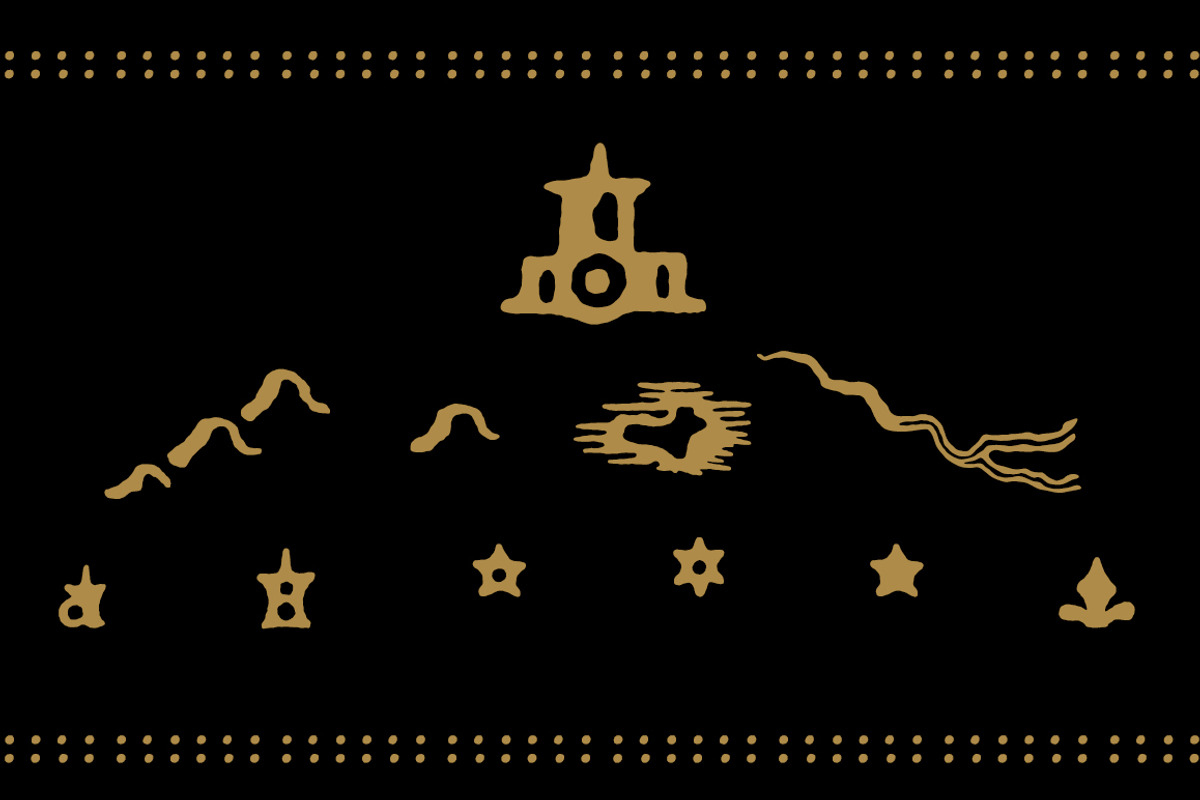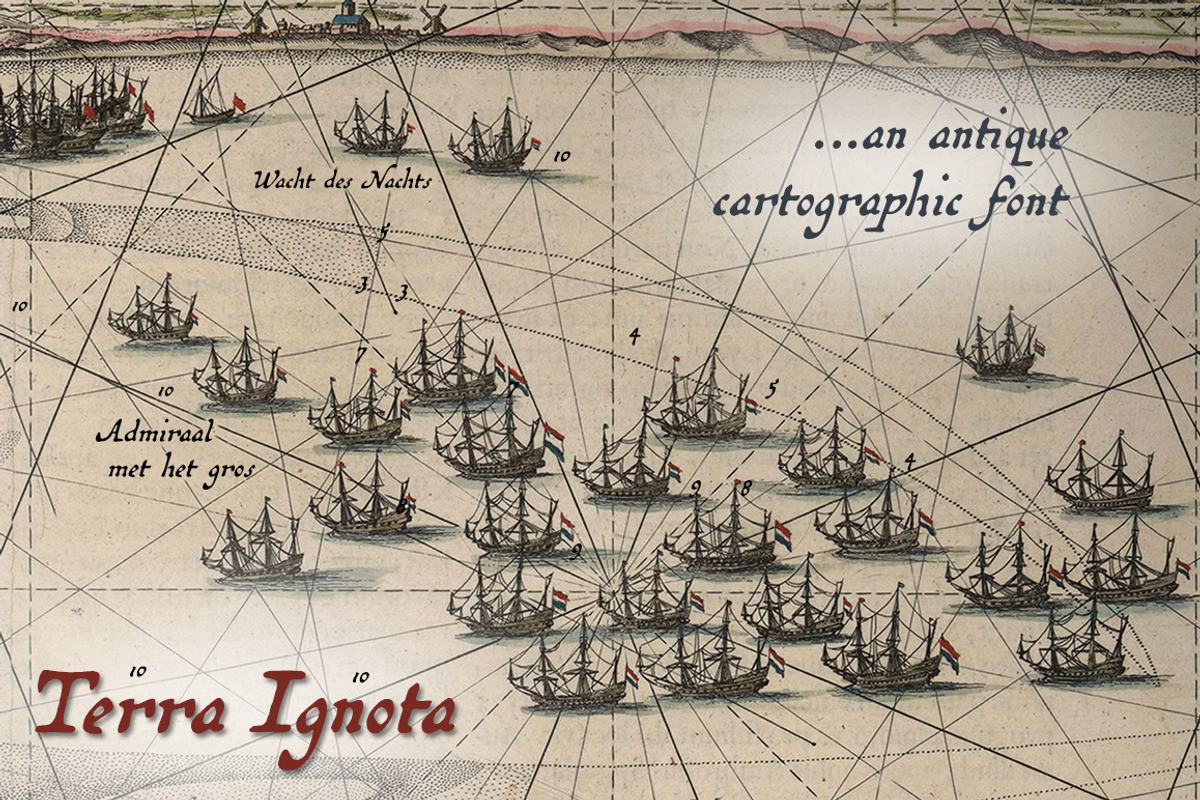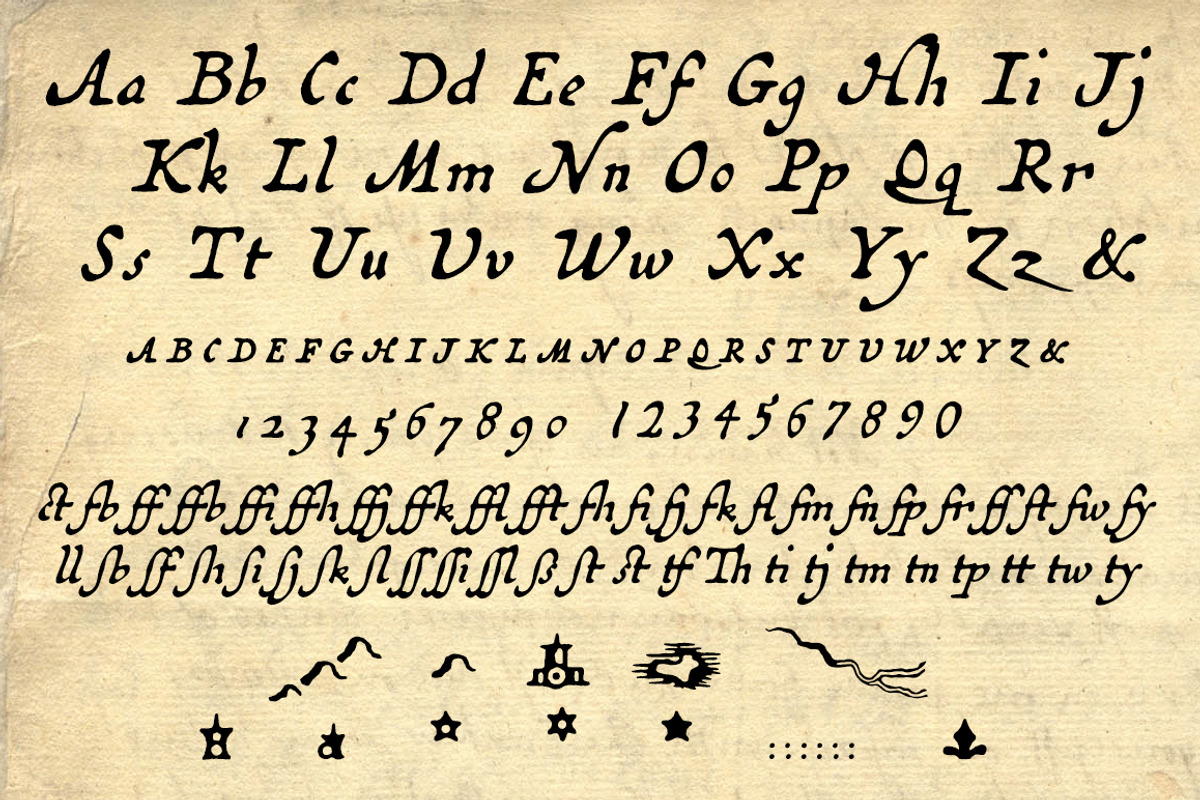
Terra Ignota, a 1600s map font
Terra Ignota, a 1600s map font by Three Islands Press is a font selected for branding, posters, packaging, typography.
- Terra Ignota comes with true small caps, numerous ligatures, both lining and old-style figures, a few cartographic ornaments, and complete C
Why Terra Ignota, a 1600s map font is worth a look
Terra Ignota, a 1600s map font by Three Islands Press fits naturally into Branding, posters, packaging, typography.